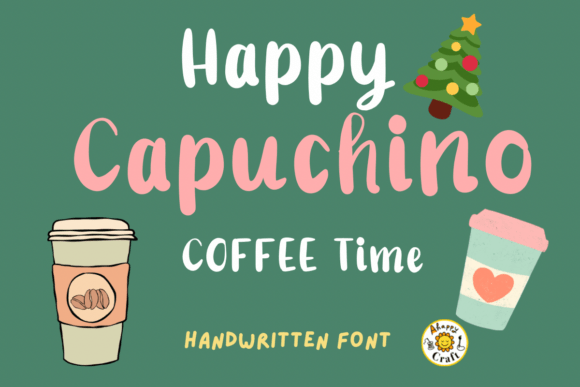
Introducing Capuchino Font: The Sweet and Friendly Handwritten Font for Your Creative Projects
Are you looking for a font that can add a touch of sweetness and friendliness to your designs? Look no further than Capuchino Font! This beautiful handwritten font is perfect for a wide range of creative projects, from branding and packaging to invitations and crafts. In this article, we’ll take a closer look at Capuchino Font and explore its unique features, uses, and benefits.
What is Capuchino Font?
Capuchino Font is a sweet and friendly handwritten font that is designed to bring a personal touch to your designs. Its natural and unique style makes it incredibly fitting to a large pool of designs, from modern and trendy to vintage and rustic. The font’s smooth and flowing lines give it a organic feel that’s perfect for creating a sense of warmth and approachability in your designs.
Key Features of Capuchino Font
So, what makes Capuchino Font so special? Here are some of its key features:
- Handwritten style: Capuchino Font has a beautiful handwritten style that’s perfect for creating personal and unique designs.
- Sweet and friendly: The font’s sweet and friendly tone makes it perfect for designs that require a touch of warmth and approachability.
- Natural and unique: Capuchino Font’s natural and unique style makes it incredibly fitting to a wide range of designs.
- Highly versatile: The font is perfect for a variety of creative projects, from branding and packaging to invitations and crafts.
Uses of Capuchino Font
Capuchino Font is a highly versatile font that can be used for a wide range of creative projects. Here are some ideas to get you started:
- Branding and packaging: Use Capuchino Font to create unique and eye-catching branding and packaging designs that stand out from the crowd.
- Invitations and events: The font is perfect for creating beautiful and personalized invitations and event materials.
- Crafts and DIY projects: Capuchino Font is a great choice for crafters and DIY enthusiasts who want to add a personal touch to their projects.
- Digital products: Use the font to create visually appealing digital products, such as ebooks, printables, and more.
Benefits of Using Capuchino Font
So, why should you choose Capuchino Font for your creative projects? Here are some benefits of using this beautiful font:
- Adds a personal touch: Capuchino Font’s handwritten style adds a personal touch to your designs, making them more unique and engaging.
- Easy to read: The font is highly legible, making it perfect for designs that require a clear and easy-to-read text.
- Highly versatile: Capuchino Font can be used for a wide range of creative projects, making it a great addition to your font library.
- Unique and creative: The font’s natural and unique style makes it perfect for designers and crafters who want to stand out from the crowd.
Tips for Using Capuchino Font
Here are some tips for using Capuchino Font in your creative projects:
- Pair it with other fonts: Experiment with pairing Capuchino Font with other fonts to create unique and interesting combinations.
- Use it for headings and titles: The font is perfect for headings and titles, where its sweet and friendly tone can shine.
- Experiment with colors: Try using Capuchino Font with different colors to create a unique and eye-catching design.
Capuchino Font is a beautiful and versatile handwritten font that’s perfect for a wide range of creative projects. Its sweet and friendly tone, natural and unique style, and highly legible design make it a great choice for designers and crafters who want to add a personal touch to their designs. Whether you’re creating branding and packaging, invitations and events, or digital products, Capuchino Font is a great addition to your font library. So why not give it a try and see the difference it can make in your designs?